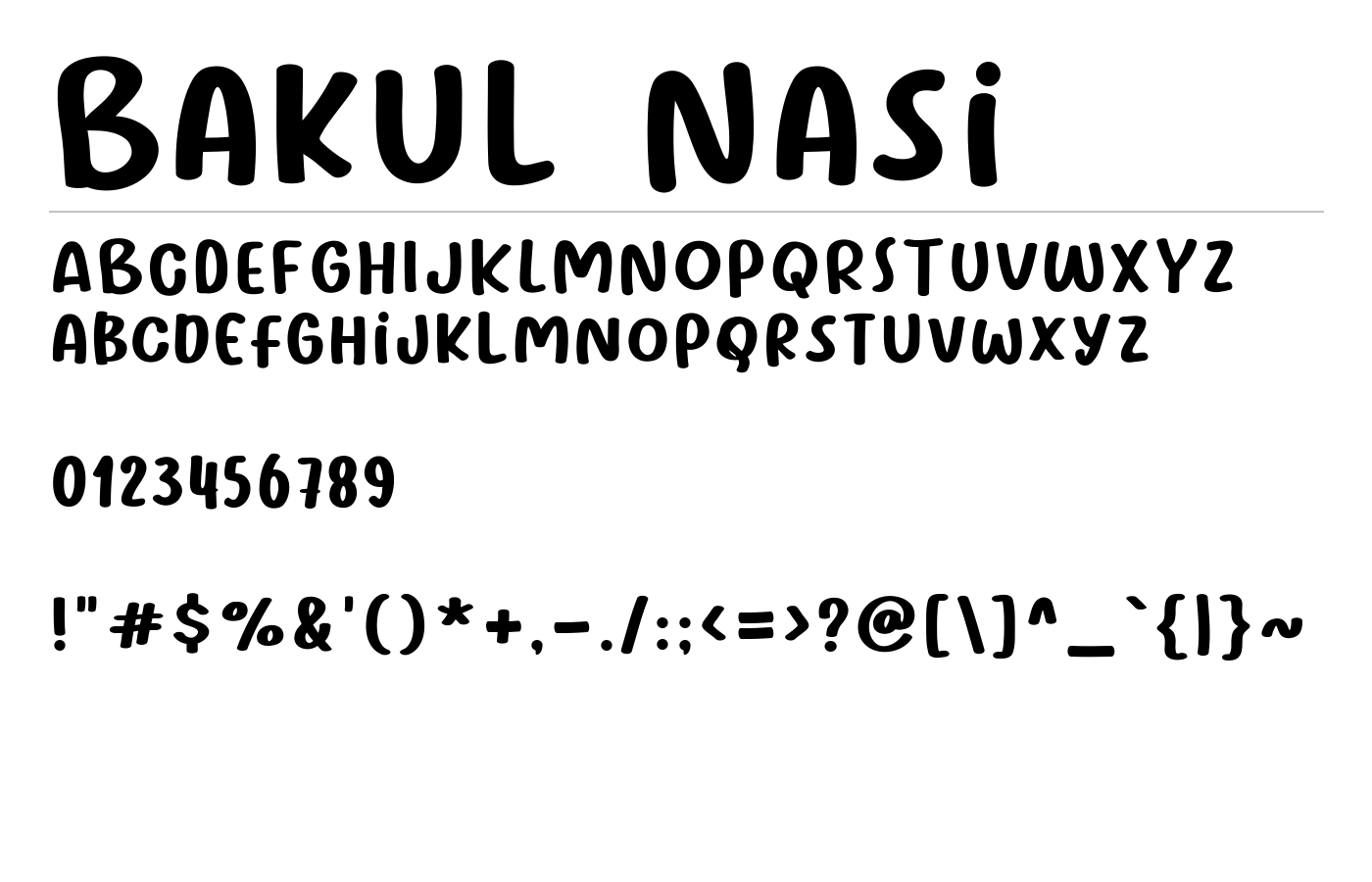
Bakul Nasi is a playful and casual sans serif font characterized by its rounded, slightly irregular letterforms that evoke a hand-drawn feel. Its medium weight and moderate x-height make it friendly and approachable, perfect for informal use in logos, children’s books, and fun branding projects. This font works well where a warm, quirky personality is desired, adding charm and personality to headlines or creative packaging.
Bakul Nasi Font
About Bakul Nasi Font
| Font family | Bakul Nasi Font |